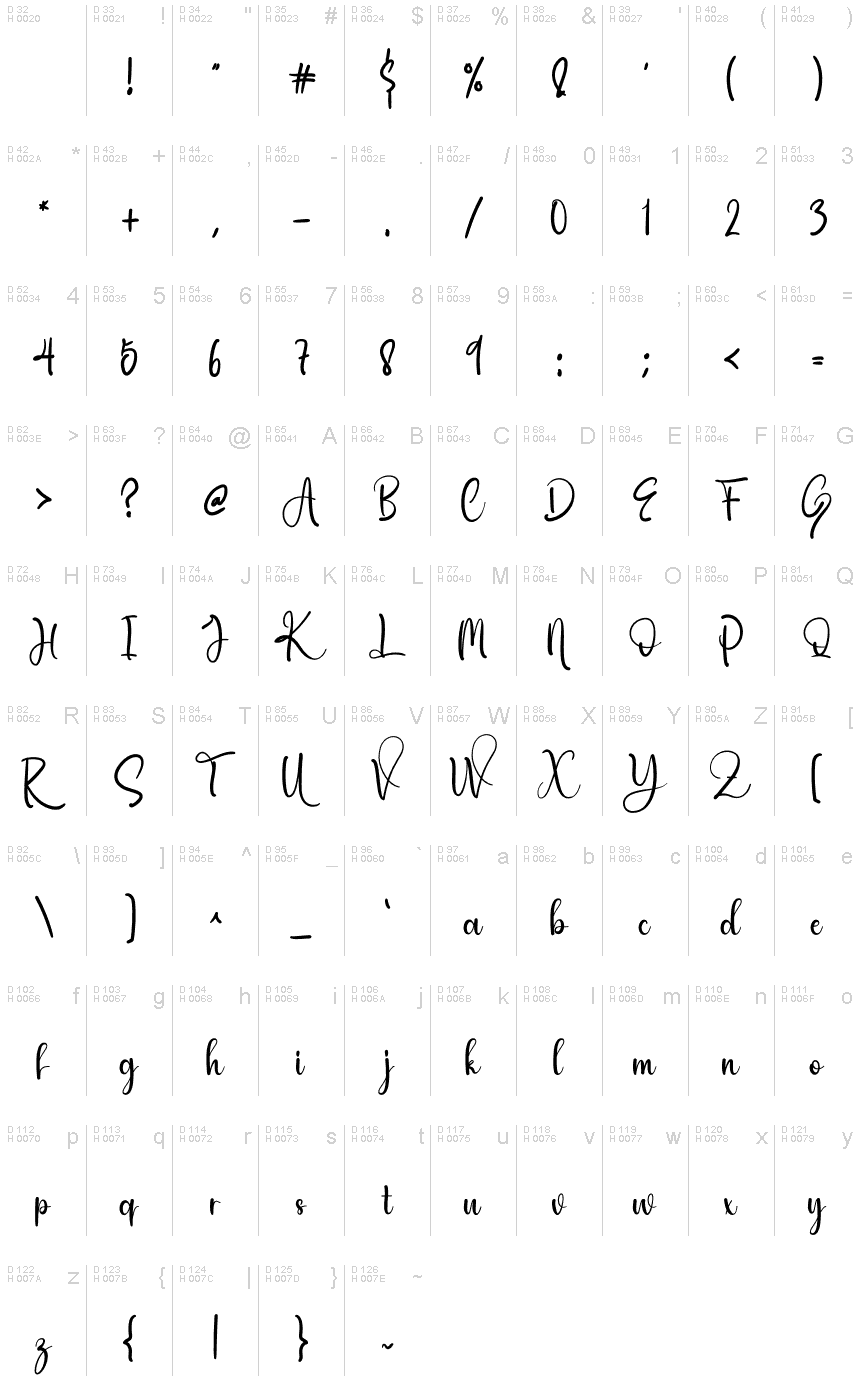
Rainbow Vintage
Rainbow Vintage, a whimsical and charming handwritten font by designer 39, adds a touch of nostalgia to any project.
With its light weight and semi-condensed width, this font is perfect for vintage-inspired designs, including wedding invitations, greeting cards, and scrapbooking. Its delicate strokes and playful curves create an old-world feel that transports viewers to a bygone era. Whether you're designing a retro-themed website or crafting a unique logo, Rainbow Vintage brings warmth and character to your creative endeavors.